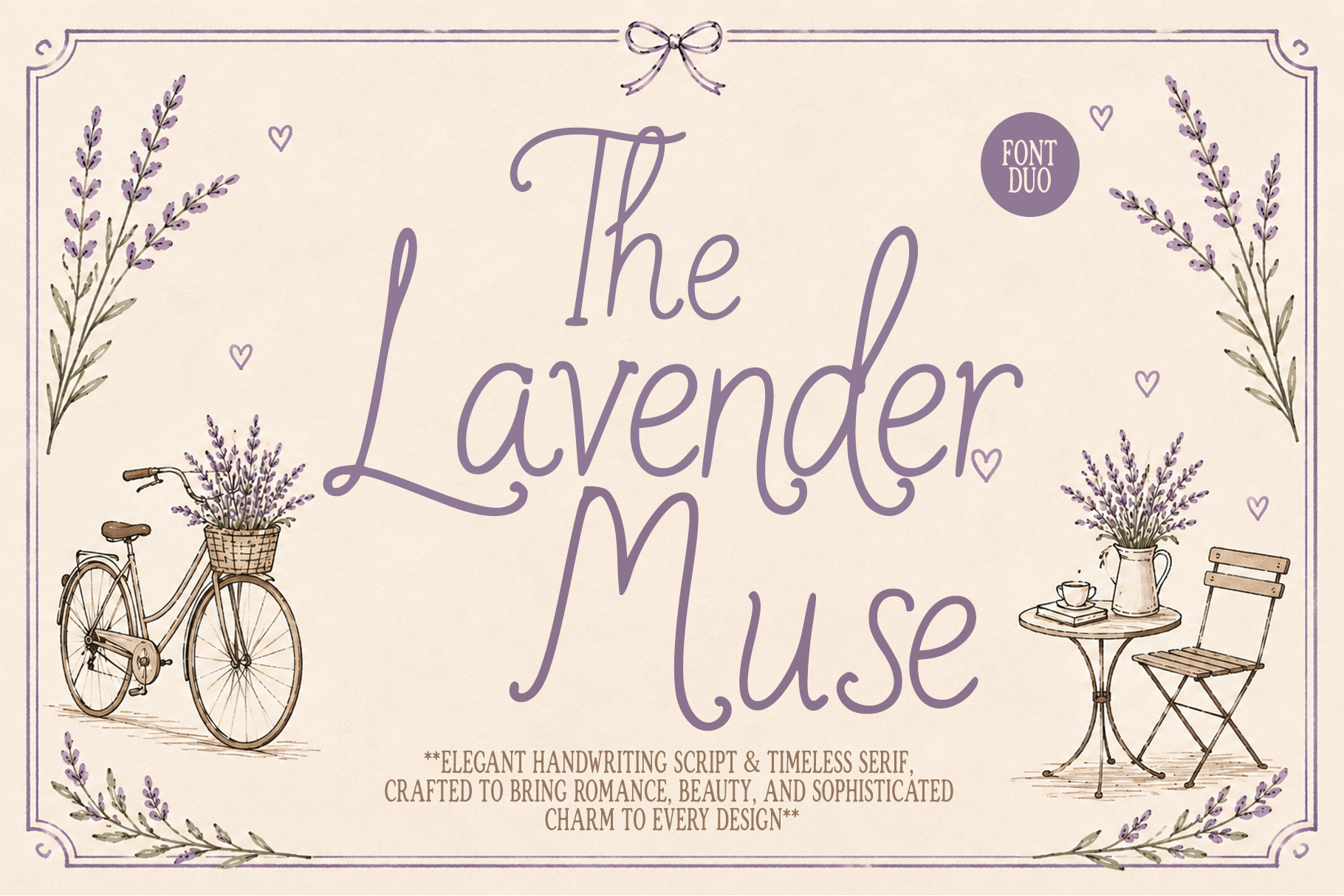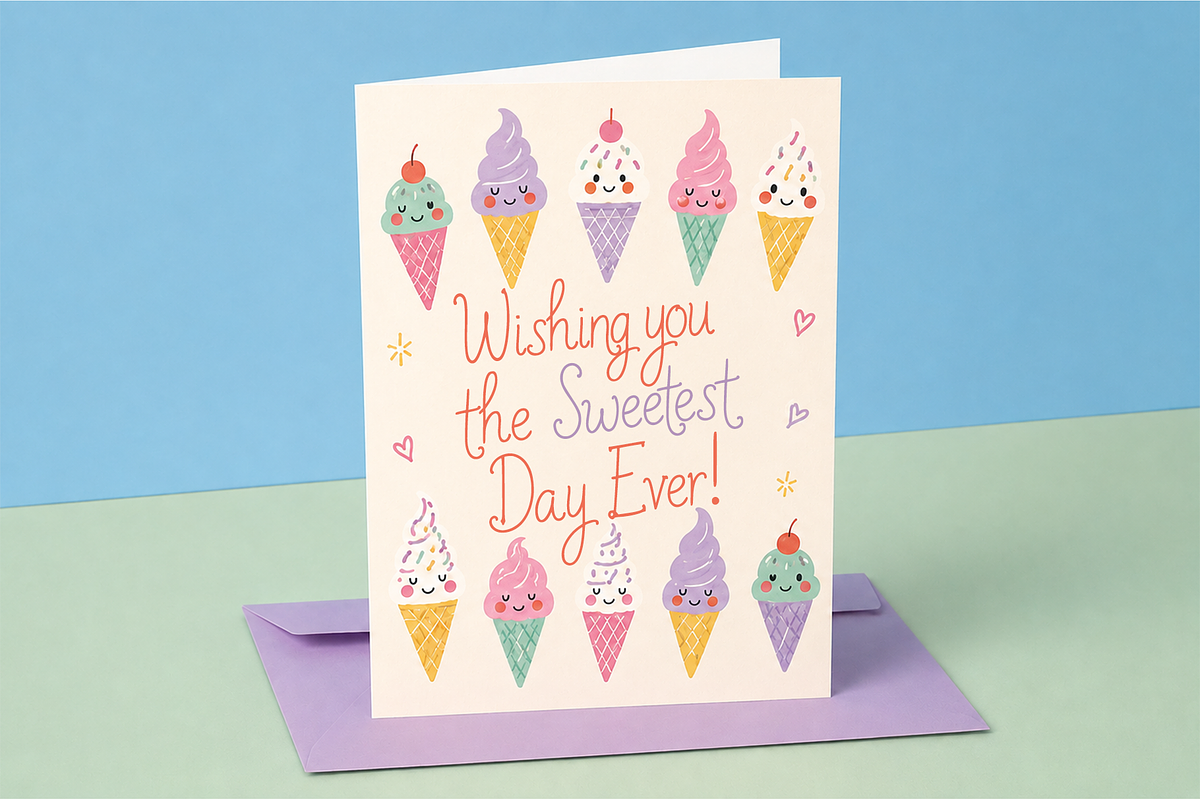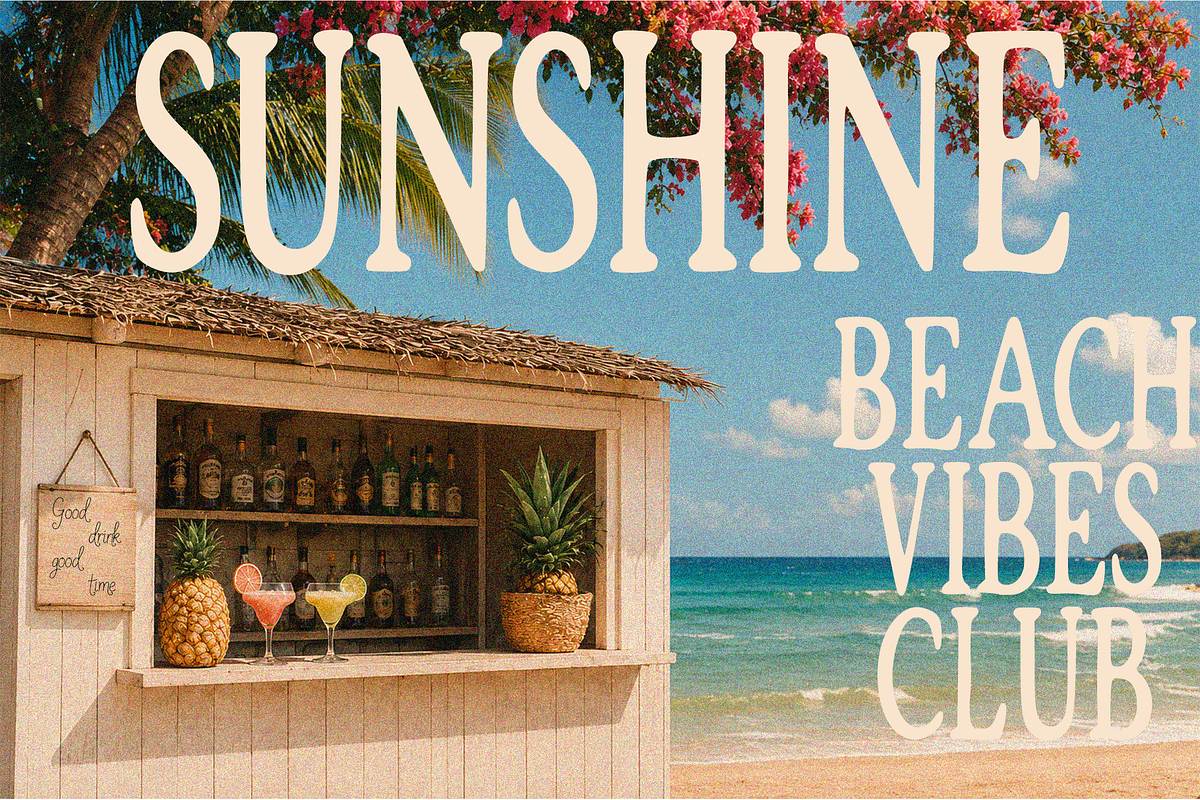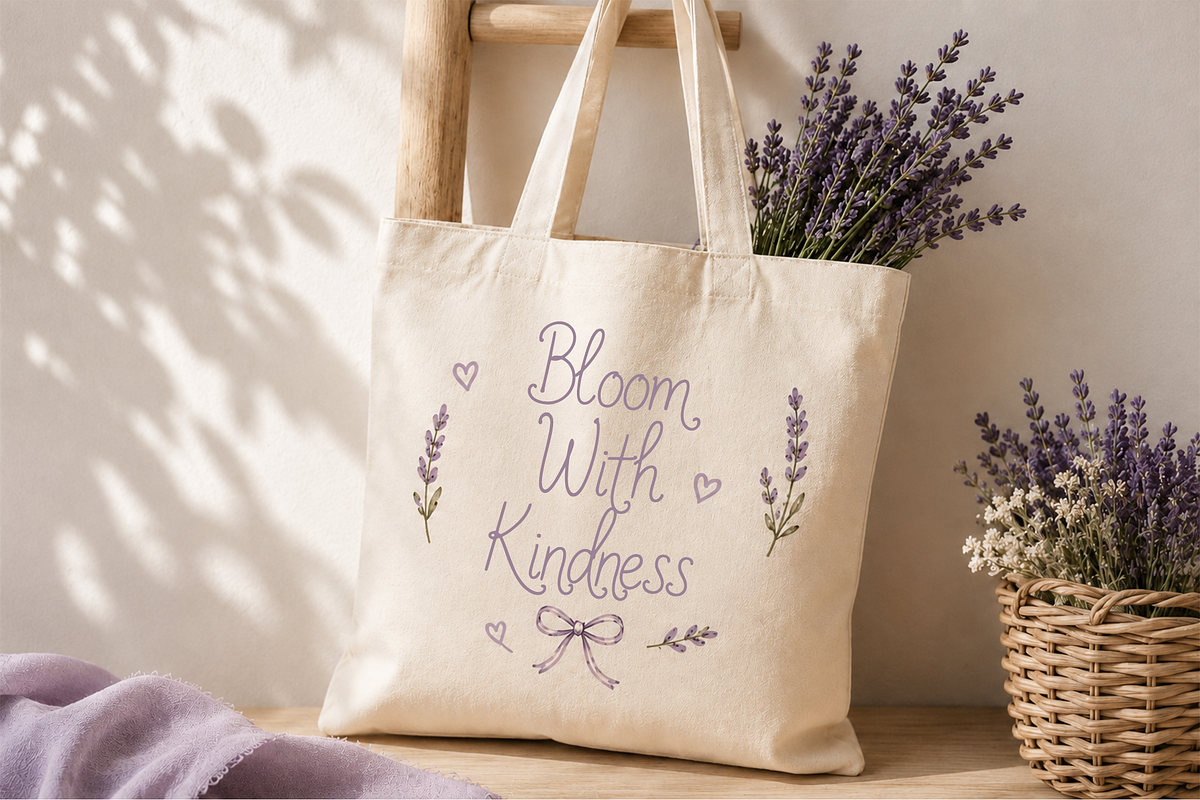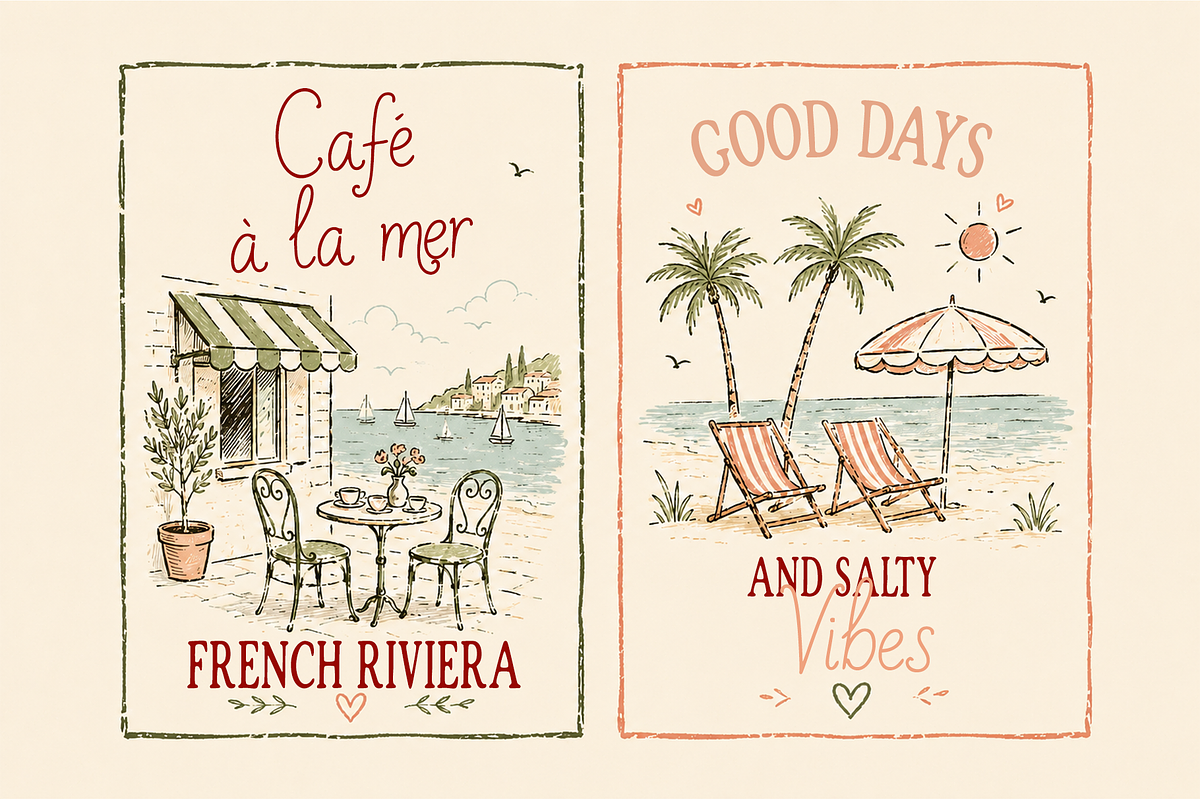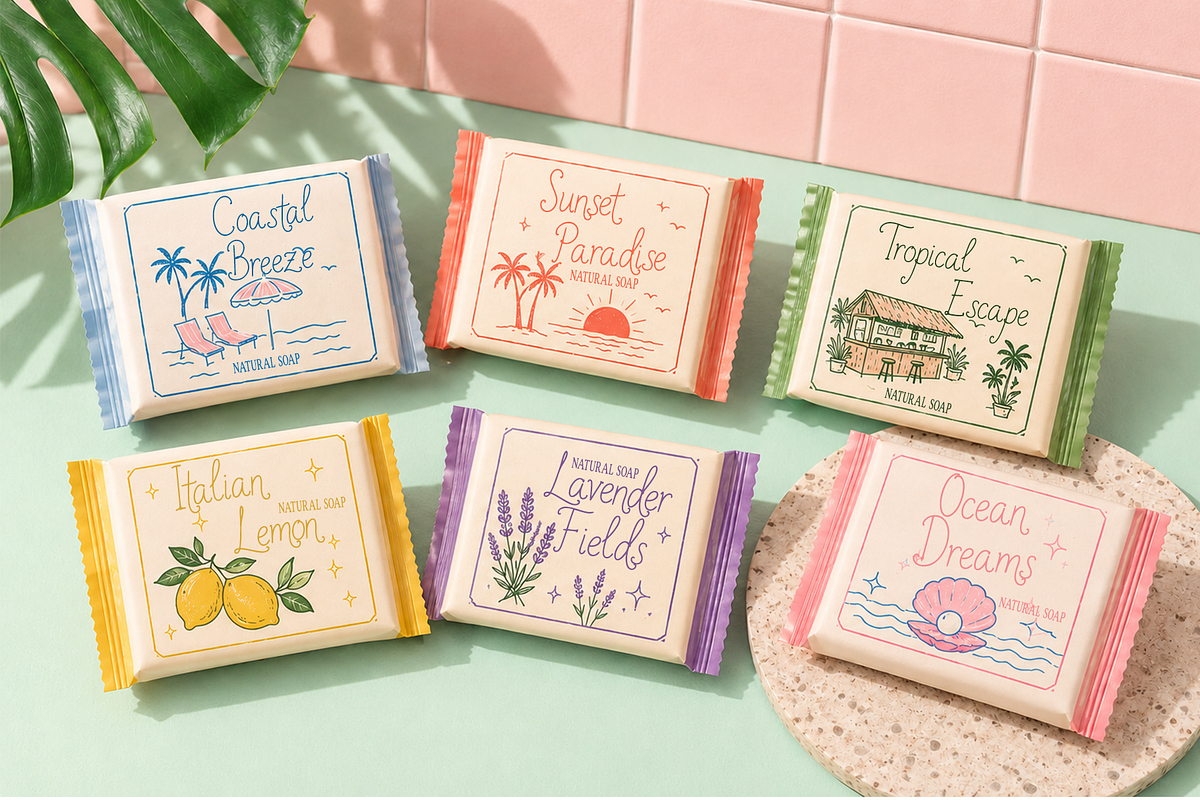
The Lavender Muse Font Duo
The Lavender Muse is an elegant font duo combining a graceful handwritten script with a timeless serif typeface. Designed to create a romantic, feminine, and sophisticated aesthetic, this versatile pairing makes it easy to create beautiful typography with a refined handcrafted feel.
The flowing script brings an expressive and delicate character, while the classic serif provides balance, structure, and timeless elegance. Use them together for a beautifully coordinated look or separately to create different design styles.